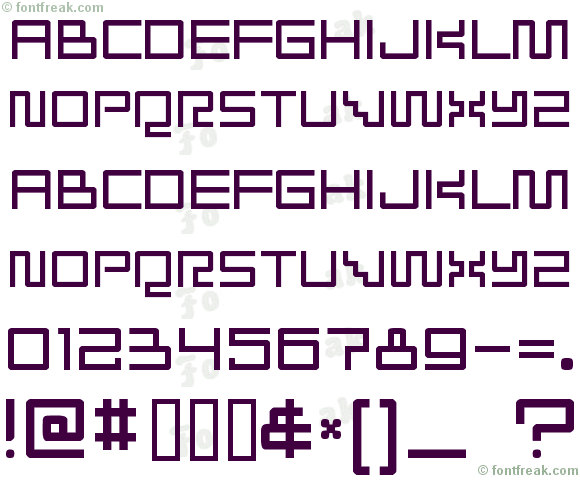
Radioaktivitet
Radioaktivitet, designed by Pizzadude, is a striking display font that encapsulates a modern, futuristic aesthetic. This font falls under the category of decorative typefaces, characterized by its unique geometric shapes and bold letterforms. The visual characteristics of Radioaktivitet feature a consistent stroke weight that gives it a sturdy presence, while the sharp angles and straight lines contribute to its distinct, high-tech vibe. The spacing is balanced, ensuring legibility while maintaining an eye-catching appearance that draws attention.
This font is particularly well-suited for a variety of creative applications. Its bold and distinctive style makes it an excellent choice for movie posters, where it can effectively convey themes of science fiction or technology. Radioaktivitet can also enhance the visual appeal of music album covers, especially in genres that emphasize modernity or avant-garde sensibilities. Moreover, it works wonderfully for advertising materials, such as promotional flyers for tech events or gaming competitions, allowing brands to stand out in a crowded market. Graphic designers and content creators will find this font particularly useful for crafting attention-grabbing social media graphics or website headers.
What sets the Radioaktivitet font apart is its bold individuality and modern flair. It allows creators to infuse their projects with a sense of innovation and creativity, making it an indispensable asset for anyone looking to make a statement in their design work. With Radioaktivitet font free download, you can easily incorporate this unique typeface into your next project, ensuring your designs leave a lasting impression.